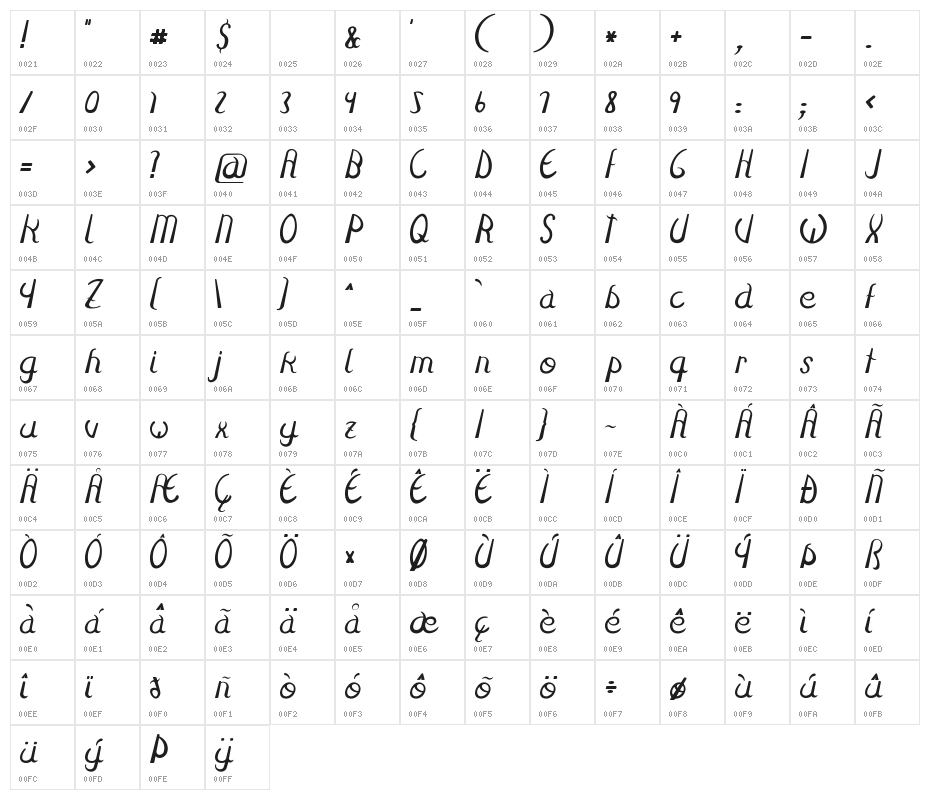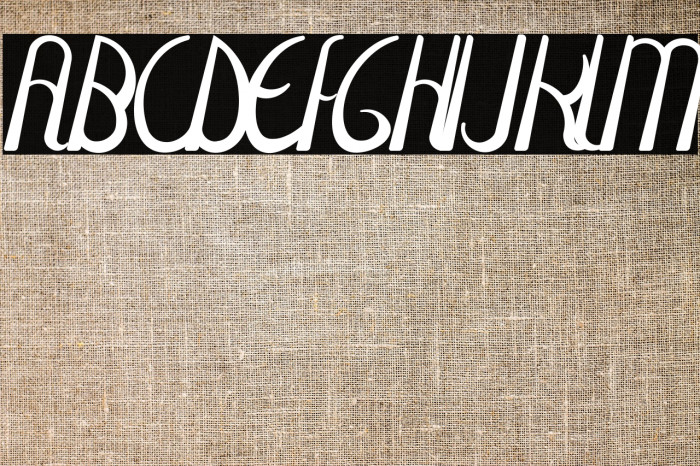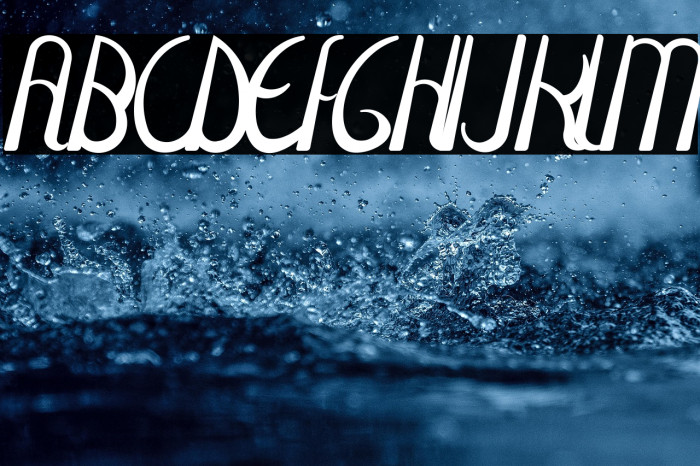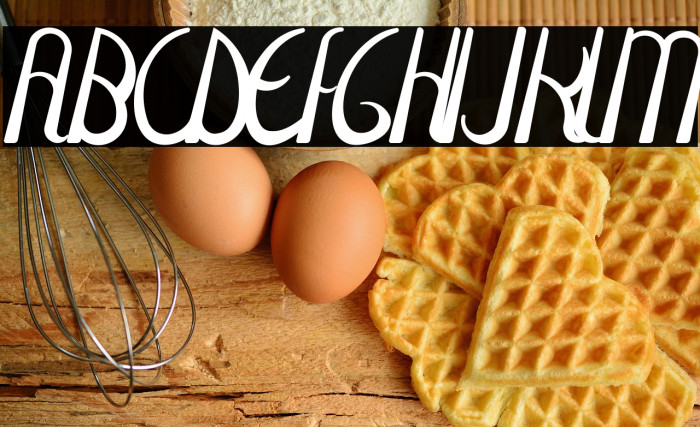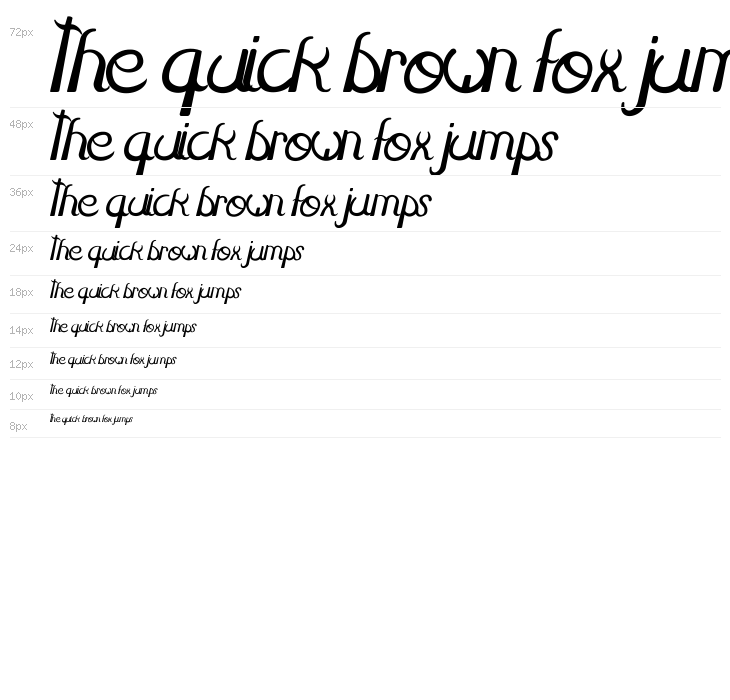
Fulgura Font
Fulgura Description
This font features a dynamic and flowing script style, characterized by its elongated and slightly slanted letterforms. The strokes are smooth and continuous, giving it an elegant and modern appearance. The uppercase letters are bold and prominent, while the lowercase letters maintain a consistent flow, enhancing readability. The numerals are distinct and align well with the overall style, making them suitable for various applications. Special characters are creatively designed, adding a unique flair to the font. The overall design is both artistic and functional, making it versatile for different design needs.